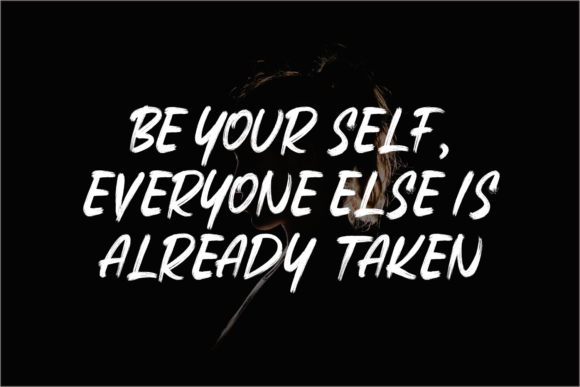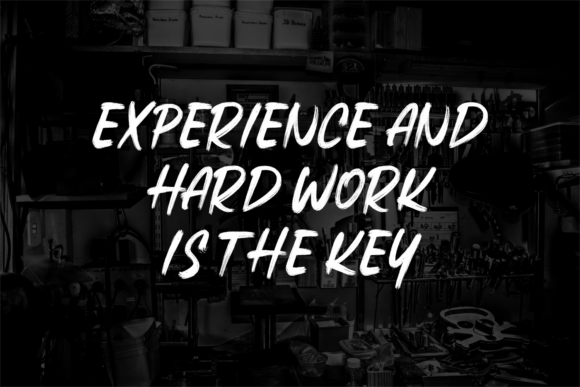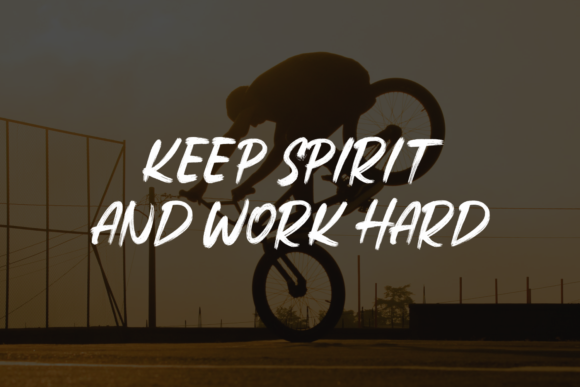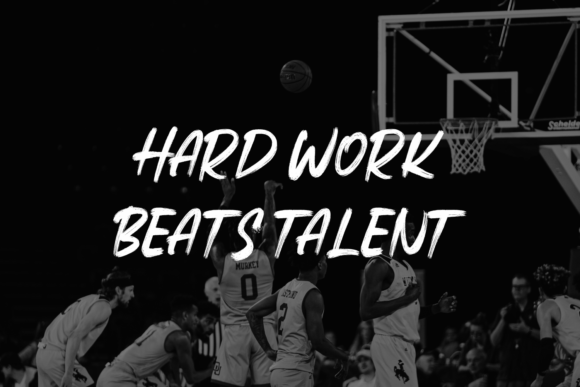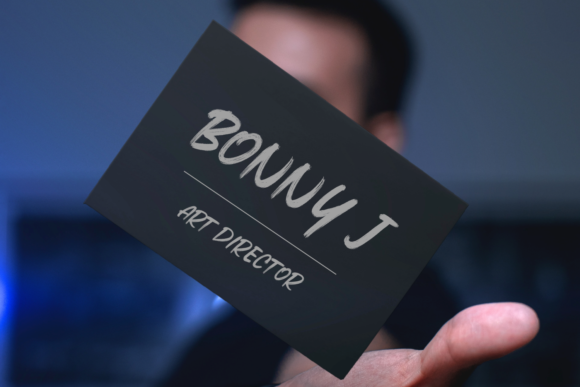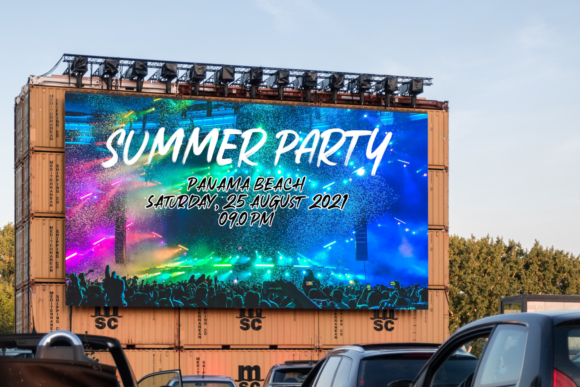
Unleash Your Creativity with Black Monday Font: A Cool, Paint Brushed Display Font
Are you a designer or crafter looking for a font that can elevate your creations to the next level? Look no further than Black Monday Font, a cool, paint brushed display font that is sure to become an incredible asset to your font library. With its unique, hand-crafted aesthetic, Black Monday Font is perfect for a wide range of design projects, from bold headlines to eye-catching logos and branding materials.
The Power of Black Monday Font
Black Monday Font is a versatile font that can be used for a variety of design projects, regardless of the topic or theme. Its paint brushed texture gives it a distinctive, hand-crafted look that is sure to grab attention and add a touch of personality to any design. Whether you’re working on a logo, brochure, or social media graphic, Black Monday Font is the perfect choice for designers who want to add a bold, creative touch to their work.
Key Features of Black Monday Font
- Cool, paint brushed display font: Black Monday Font features a unique, hand-crafted aesthetic that is sure to add a touch of personality to any design.
- Versatile and flexible: Black Monday Font can be used for a wide range of design projects, from bold headlines to eye-catching logos and branding materials.
- High-quality design: Black Monday Font is designed with high-quality craftsmanship in mind, ensuring that it looks great in any design.
How to Use Black Monday Font in Your Designs
Black Monday Font is easy to use and can be incorporated into a wide range of design projects. Here are a few ideas to get you started:
- Logos and branding materials: Use Black Monday Font to create bold, eye-catching logos and branding materials that are sure to grab attention.
- Headlines and titles: Use Black Monday Font to add a touch of personality to your headlines and titles, making them stand out from the crowd.
- Social media graphics: Use Black Monday Font to create eye-catching social media graphics that are sure to grab attention and drive engagement.
- Brochures and flyers: Use Black Monday Font to add a bold, creative touch to your brochures and flyers, making them stand out from the competition.
Why Designers and Crafters Love Black Monday Font
Black Monday Font has quickly become a favorite among designers and crafters, and for good reason. Here are a few reasons why:
- Unique aesthetic: Black Monday Font features a unique, hand-crafted aesthetic that is sure to add a touch of personality to any design.
- Versatility: Black Monday Font can be used for a wide range of design projects, making it a valuable addition to any font library.
- High-quality design: Black Monday Font is designed with high-quality craftsmanship in mind, ensuring that it looks great in any design.
Black Monday Font is a cool, paint brushed display font that is sure to become an incredible asset to your font library. With its unique, hand-crafted aesthetic and versatility, Black Monday Font is perfect for a wide range of design projects. Whether you’re a designer or crafter looking to add a bold, creative touch to your work, Black Monday Font is the perfect choice. So why wait? Download Black Monday Font today and start unleashing your creativity!